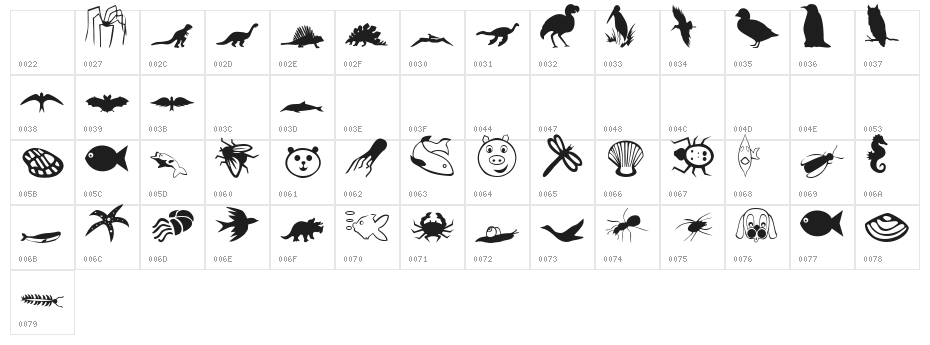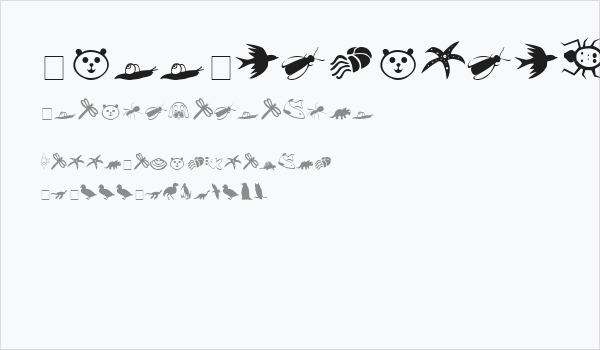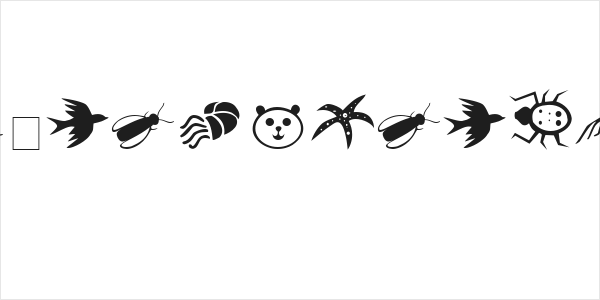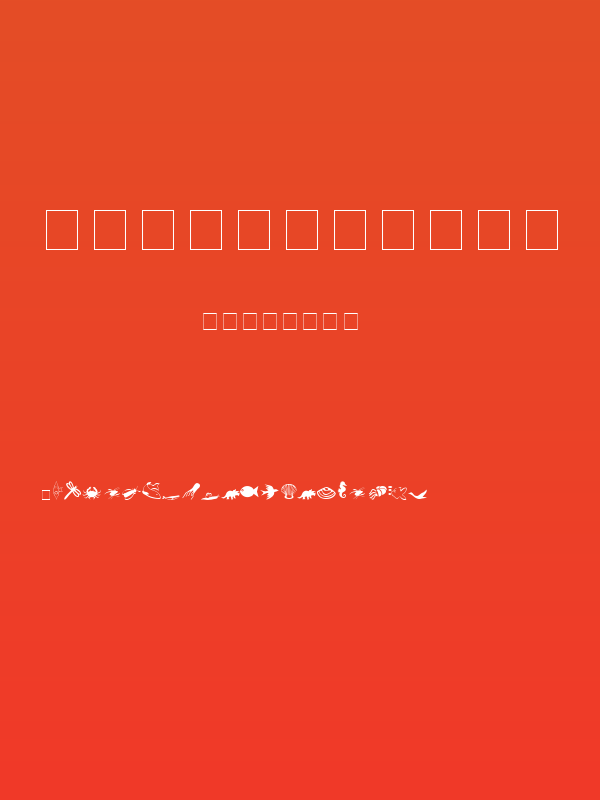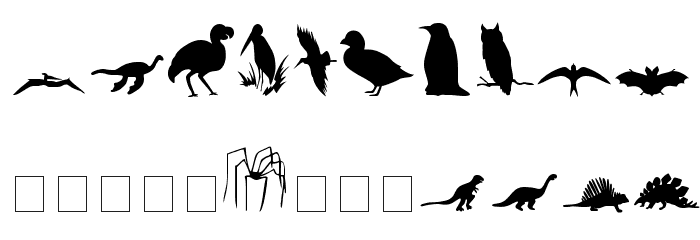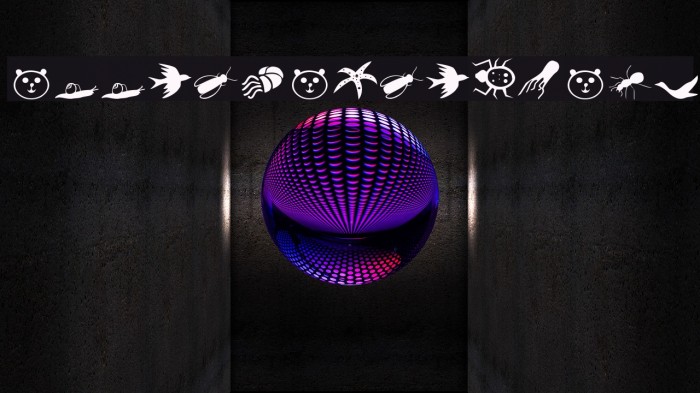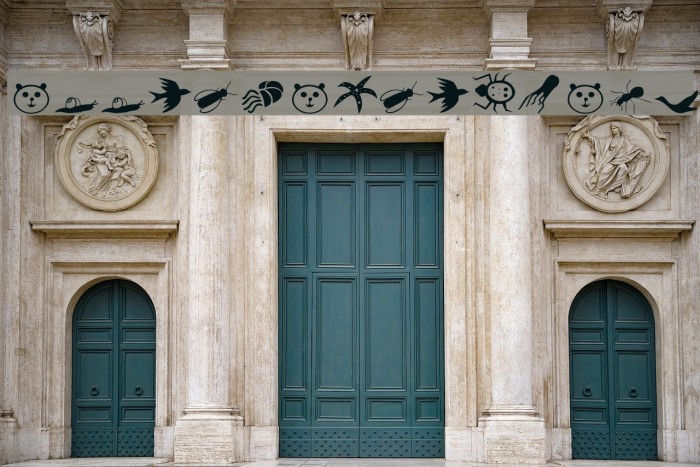
Carr Animal Dingbats Font
Carr Animal Dingbats Description
This collection features a variety of animal-themed dingbats, showcasing a playful and whimsical style. Each character is a unique representation of different animals, ranging from insects and sea creatures to birds and mammals. The designs are bold and clear, making them easily recognizable and suitable for decorative purposes. The characters are evenly spaced and maintain a consistent style throughout, with a focus on simplicity and charm. This set is ideal for adding a touch of nature-inspired fun to any project.
| Overall Style | Whimsical |
| Use Case | Decorative elements, Themed designs |
| Proposed Projects | Ideal for children's books, educational materials, nature-themed designs, and decorative elements in graphic design projects. |